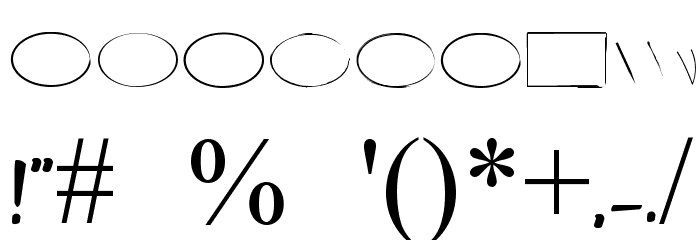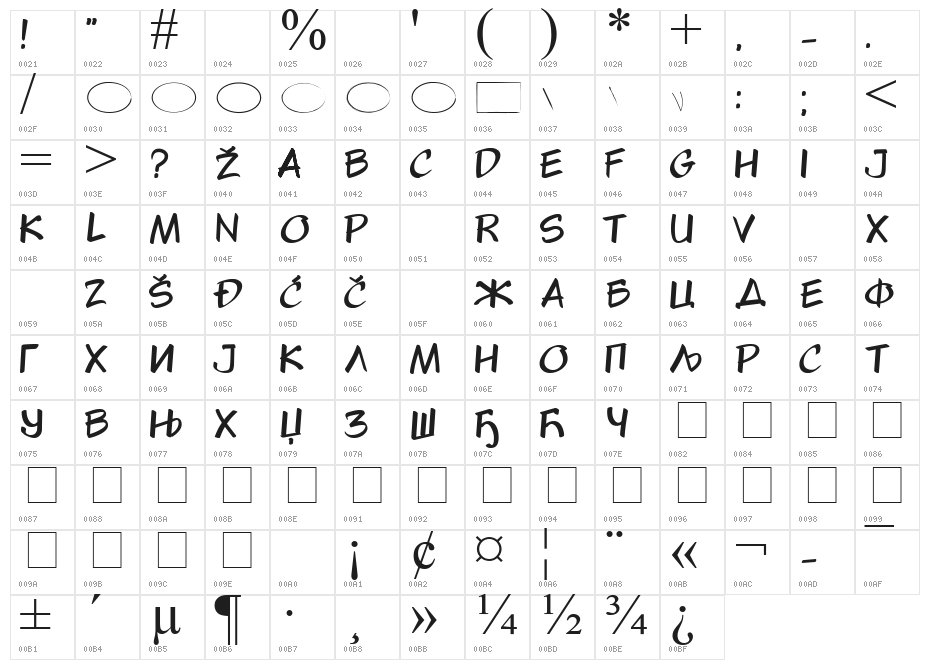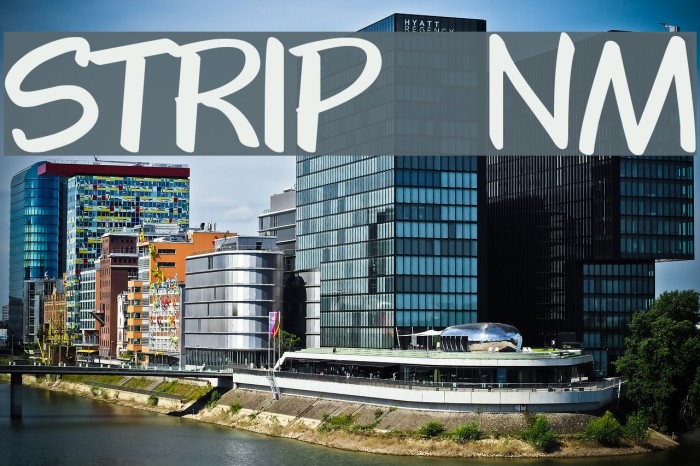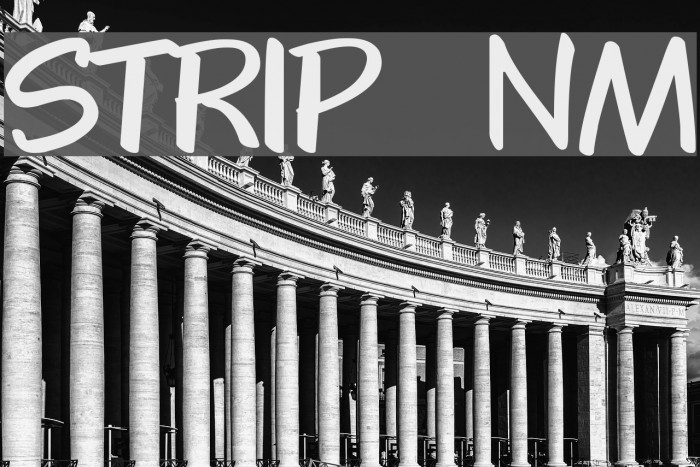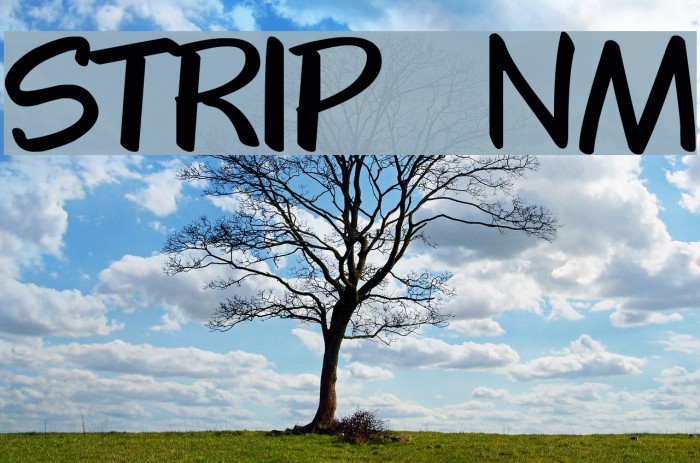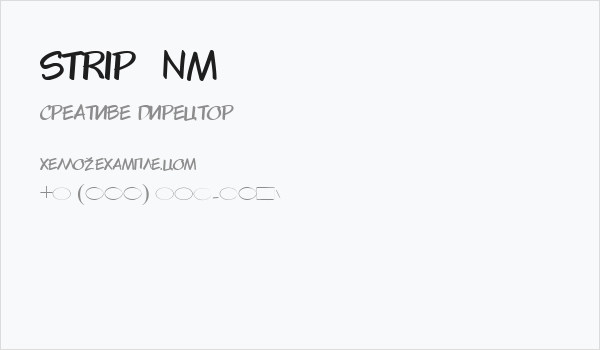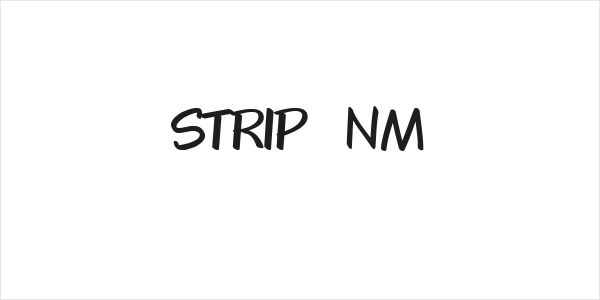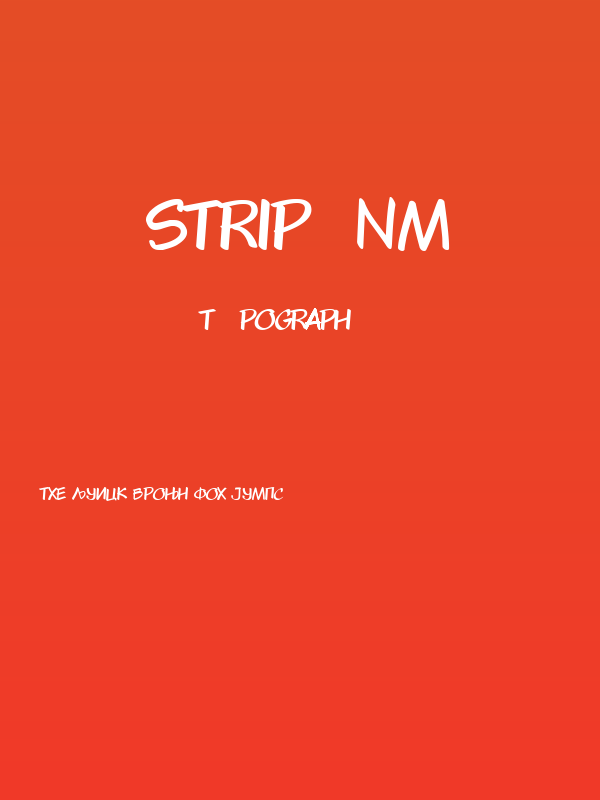
STRIP_NM Font
STRIP_NM Description
This font features a bold and energetic style with a handwritten appearance. The characters are slightly slanted, giving a dynamic and informal feel. The strokes are thick and consistent, providing a strong presence on the page. The uppercase letters are prominent and well-defined, while the lowercase letters maintain a playful and casual look. The numbers and special characters are designed to match the overall aesthetic, ensuring a cohesive look across all text elements. This font is ideal for projects that require a lively and approachable tone.
| Proposed Projects | Great for comic books, children's books, playful branding, and informal invitations. |